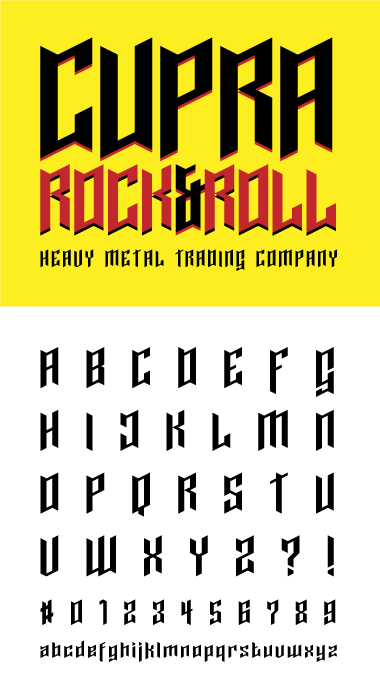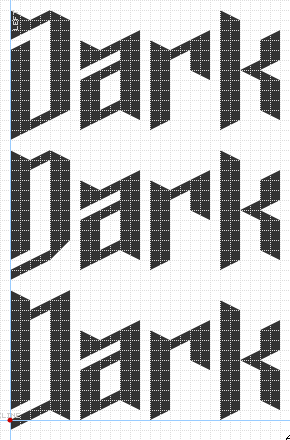
Great job. I love the &.
THIS ROCKS.
1000% brilliant C,L,S,Z,a,c,e,g,o,s,y,$,&.
Not sure about G.
Heavy metal chopsticks. A great addition worthy of a full 10
razorsharp dude!
very metal!
And yeah, that ampersand is gorgeous. You must have sold your soul to the devil :)
I'm currently working on the more latin set. Most uppercase with accents are there now...
@aphoria + kix: i'm a bit in love with the ampersand as well... the ampersand in general has made quite an impressive career in my personal love-to-do ranking, from one of the most hated to the top ten. this one here is probably my best so far... yay!
@djnippa: I wasn't so sure about G myself... I somewhat liked it, but it didn't really fit into the otherwise pretty strictly consistent font. I've replaced it with a classic version now, hope you like that one better...:)
Dig this a lot. The numerals are great. Two suggestions: 1) see if you can get eek out some more differentiation between the cap 'D' and 'O' and, 2) add some cap alternates with legs that extend beyond the baseline.
Great suggestions, afrojet... Thanks a lot! And glad you like the font...
The D/O problem is again a classical example of my everlasting inner consistency vs readability conflict. Just couldn't convince myself to break the pattern as much as to make a really recognizable D... I guess I needed someone to tell me to do so... so thanks!:)
As for the alternates, the big question for me always is: where do I put them? Should I just put them on an extended latin set? Again hurts my perfectionist's conscience... I think I should go and see a psychiatrist about that problem.
Anyway, here are some suggestions for an alternative D. Democracy decides! ;)
I like the bottom D.
At times I fall into the same consistency over readability trap too. It's an easy trap to fall into with Fontstruct.
While I like the sharp bottom angle of the first example, I'm not sure if you need to 'break' the glyph on the left side.
If you don't want to muck-up this font with alternates, perhaps you could make a companion "Cupra Alternates" font.
\m/ \m/
Neat B)